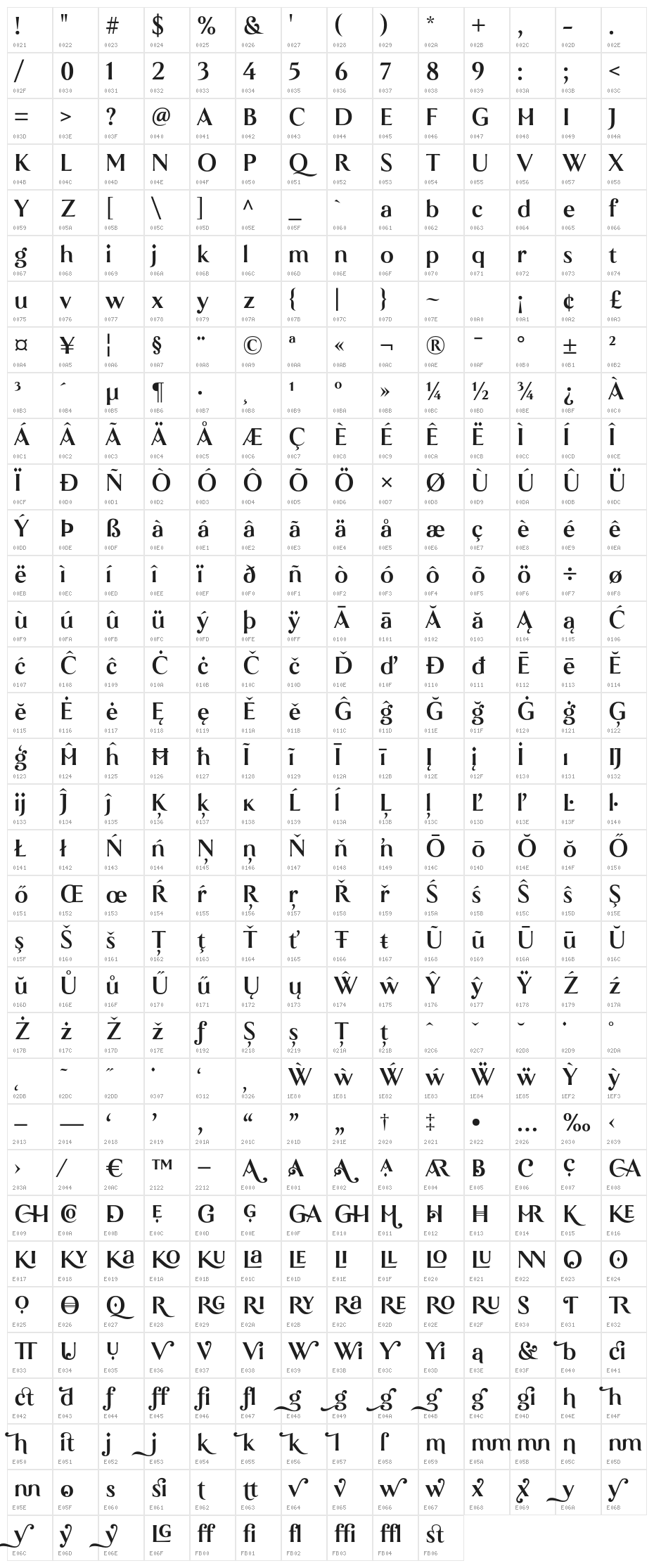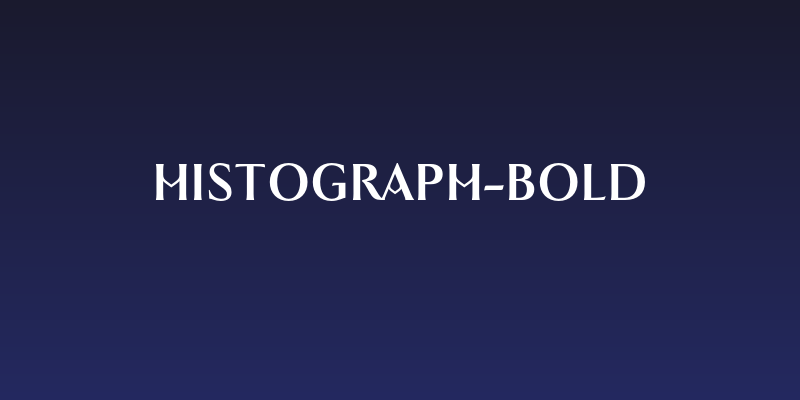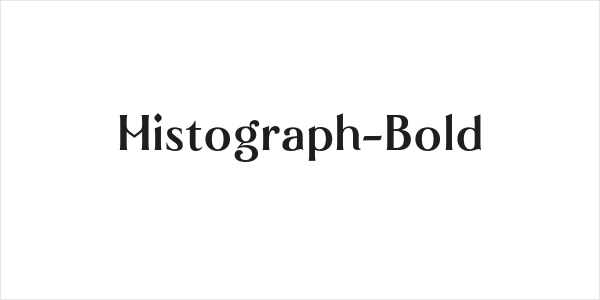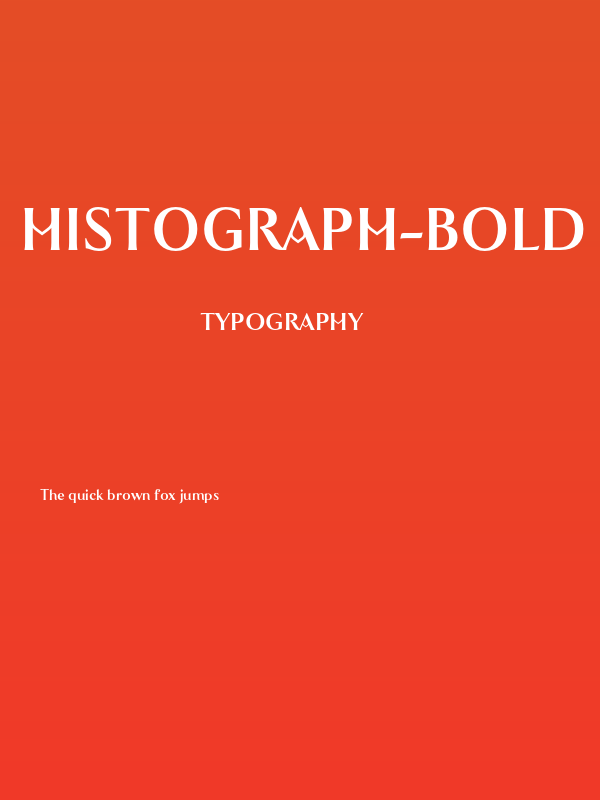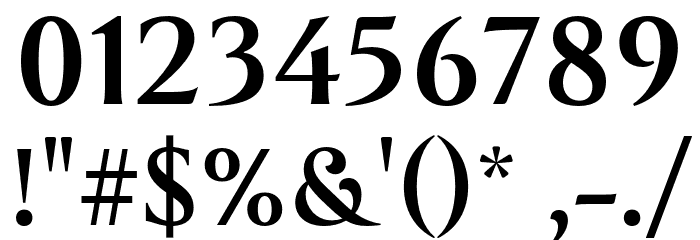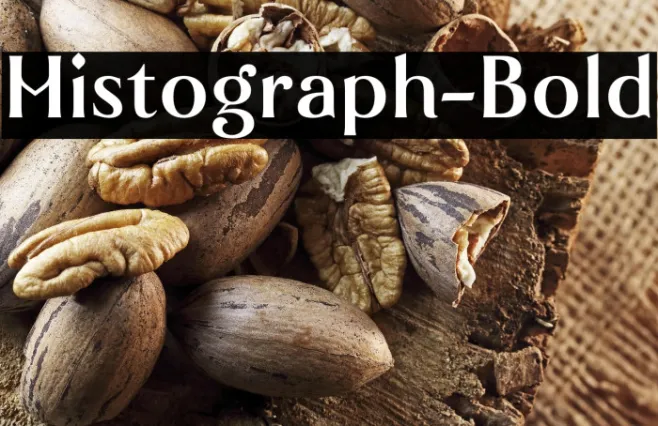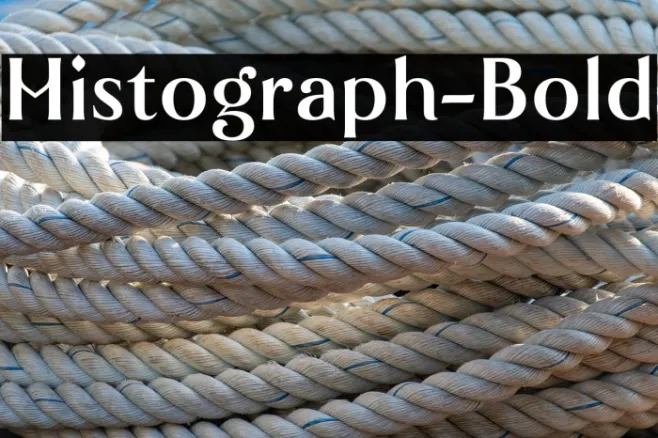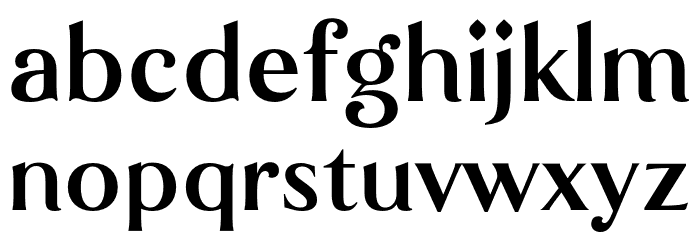
Histograph-Bold Font
Histograph-Bold Description
This font features a bold and elegant serif style with a classic touch. The uppercase letters are distinct with sharp serifs and a slight contrast in stroke width, giving them a refined appearance. The lowercase letters maintain a consistent style, with smooth curves and a balanced structure. Numbers are clear and legible, designed to complement the overall aesthetic. Special characters are crafted with attention to detail, ensuring they blend seamlessly with the rest of the typeface. This font is versatile, suitable for both traditional and modern applications, making it an excellent choice for a variety of design projects.
| Proposed Projects | Ideal for editorial design, book covers, branding, and formal invitations. |